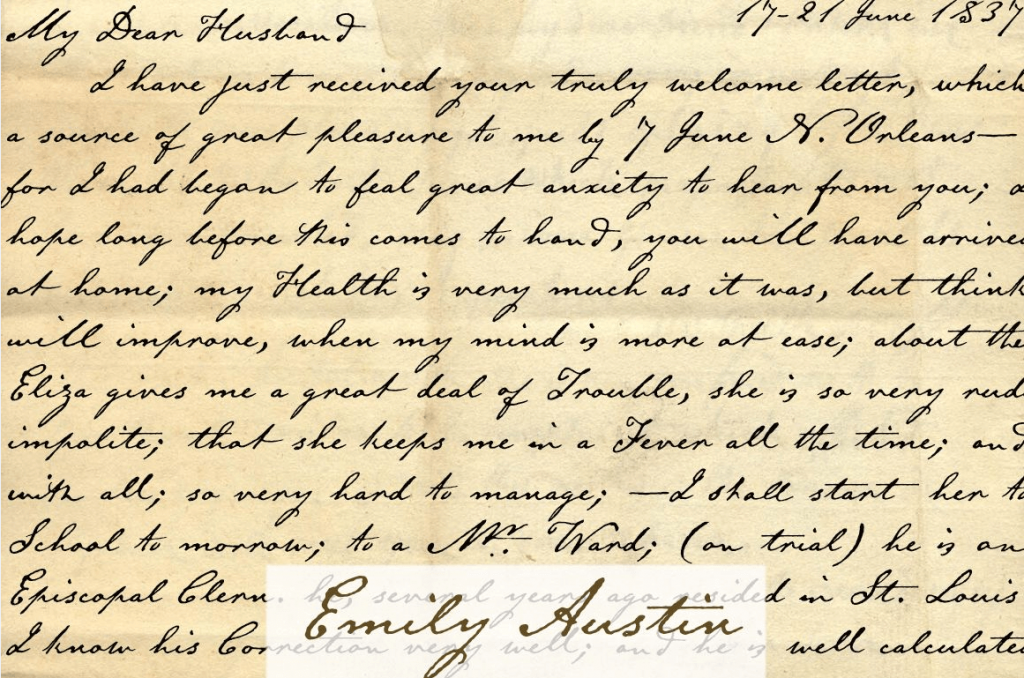
Emily Austin Font that includes amazing styles and keen features. Having immense language support and exquisite texture, it standout amongst the best text styles like have heart you have ever observed.
Because of a tremendous assortment of glyphs, that typeface is perfect for an exact content choice for a single project. And the texture of all the letters including will serve incredible readability even in the bigger display too.
Emily Austin Font Features
Alongside its bold and thick stroke letter, it would definitely use for different printing purposes. Therefore, this modest font is one of the best fonts you have ever notice.
Also, you can utilize this coolest font that looks likeĀ wanderlust letters for various card printing like invitation cards, birthday cards, & wedding cards.